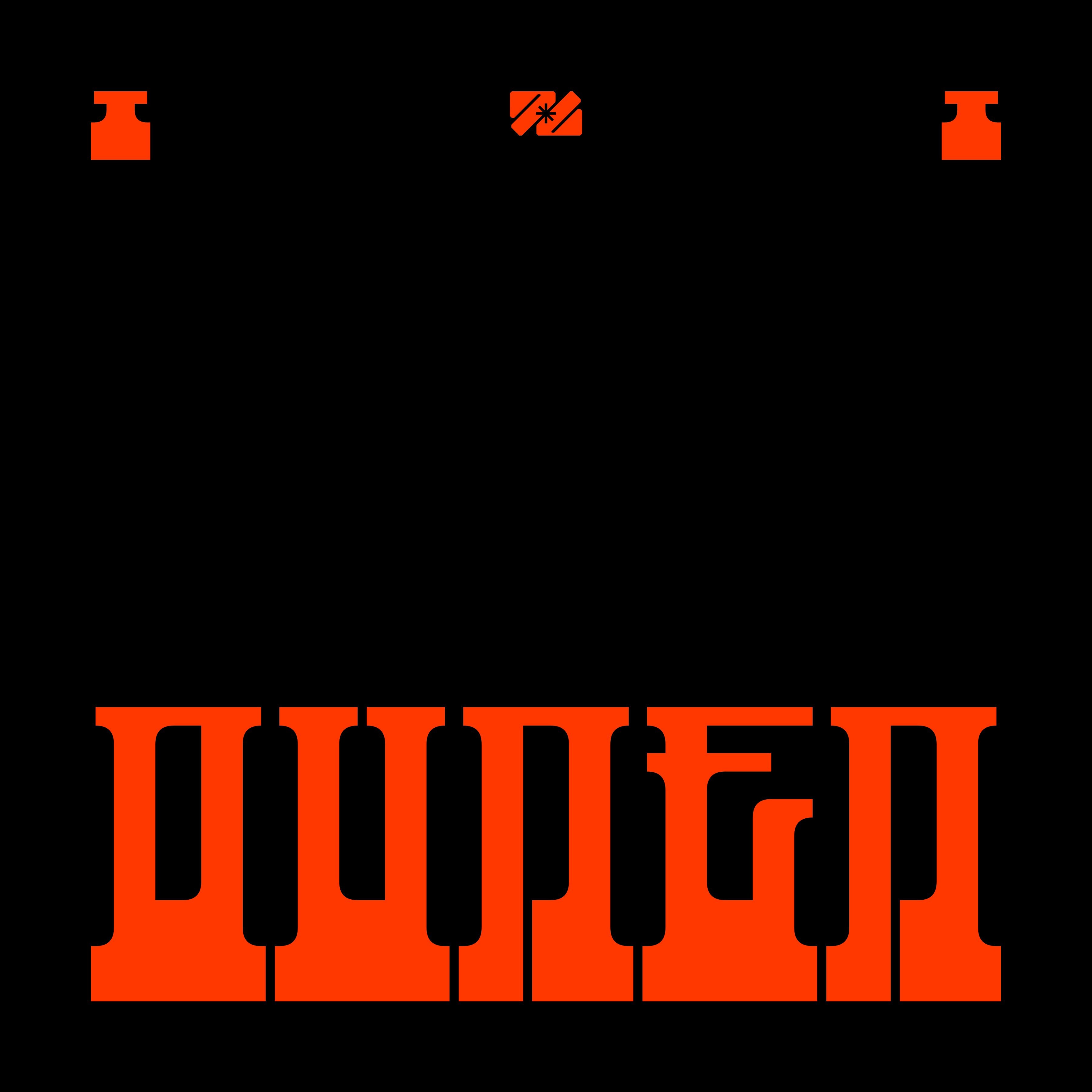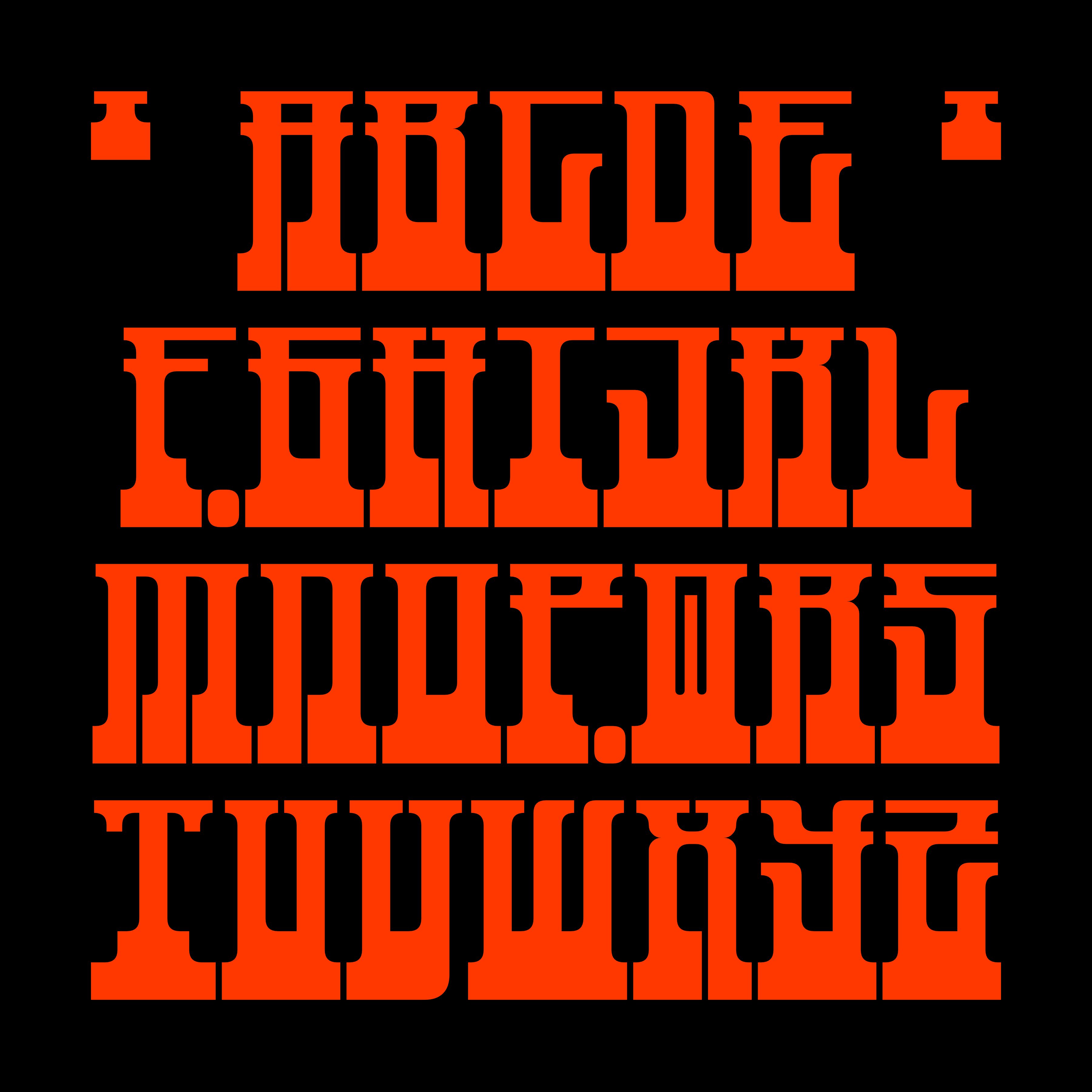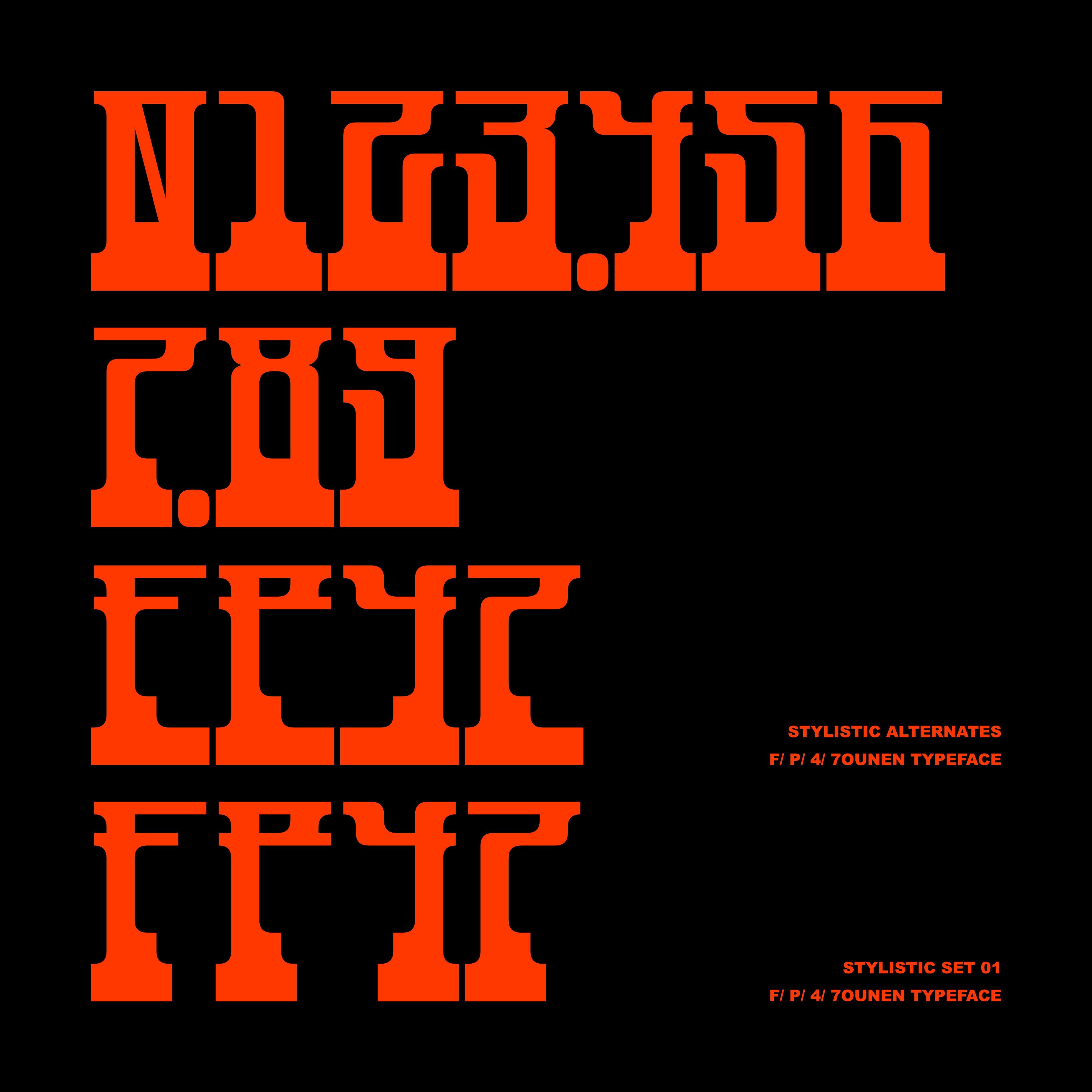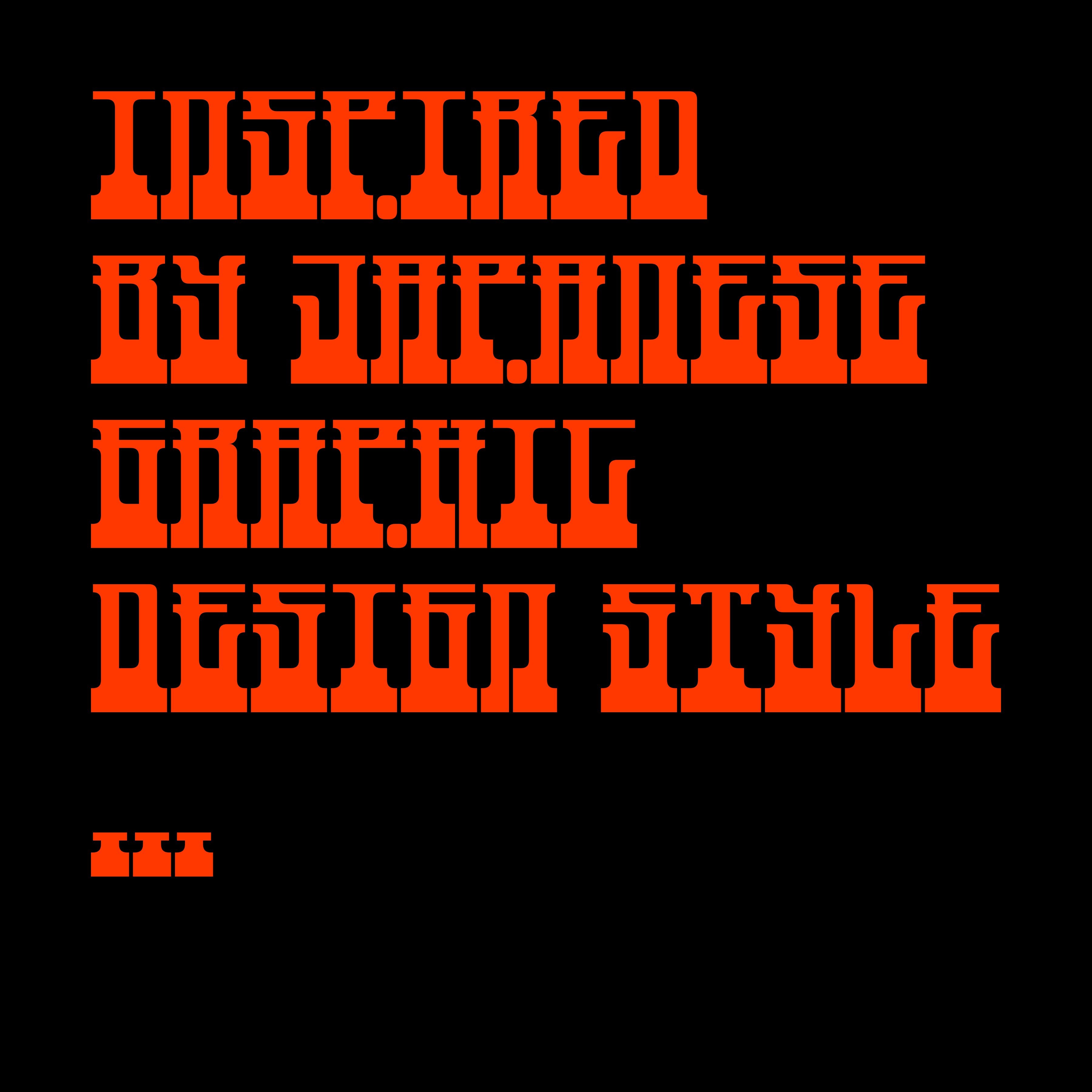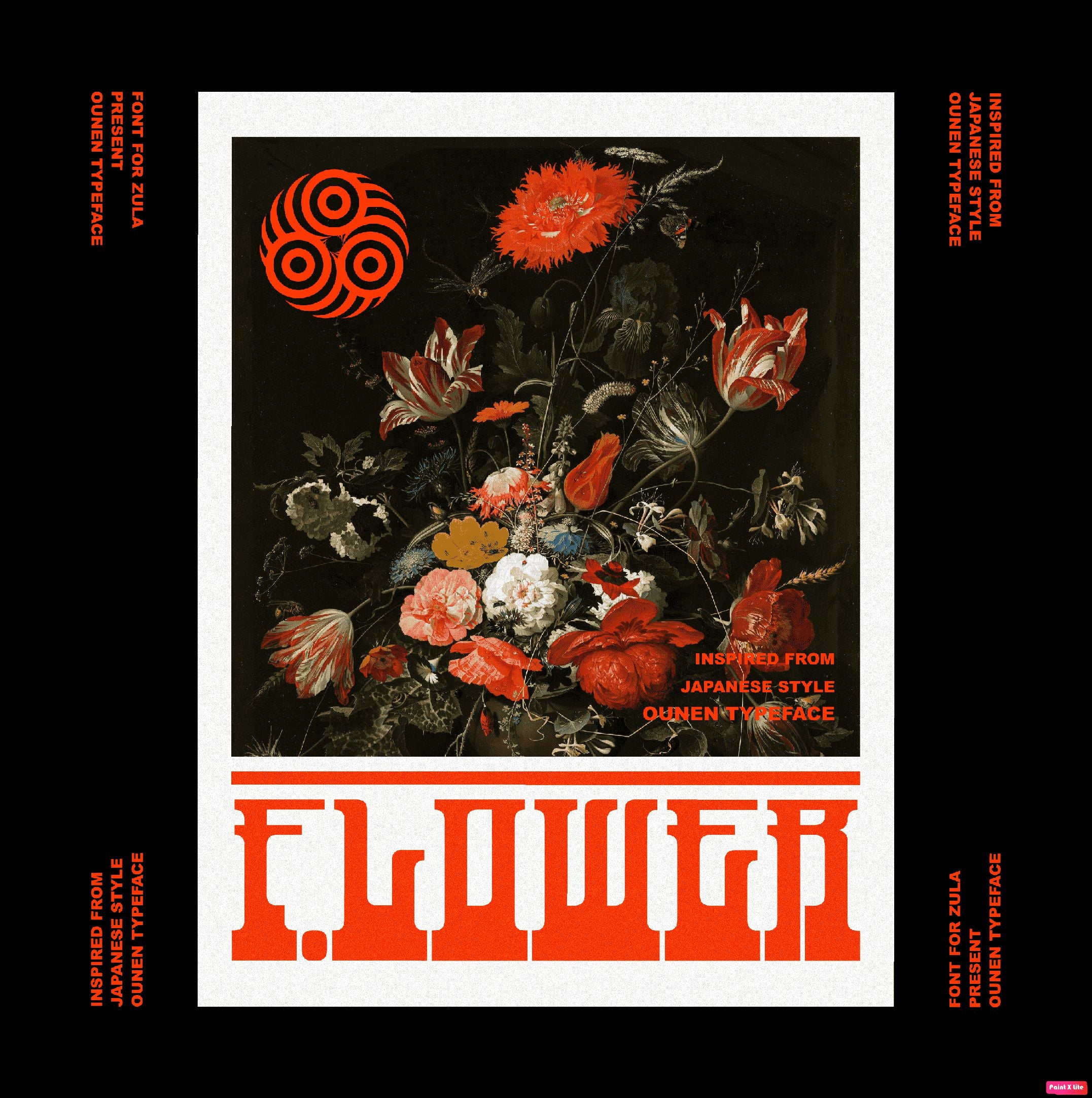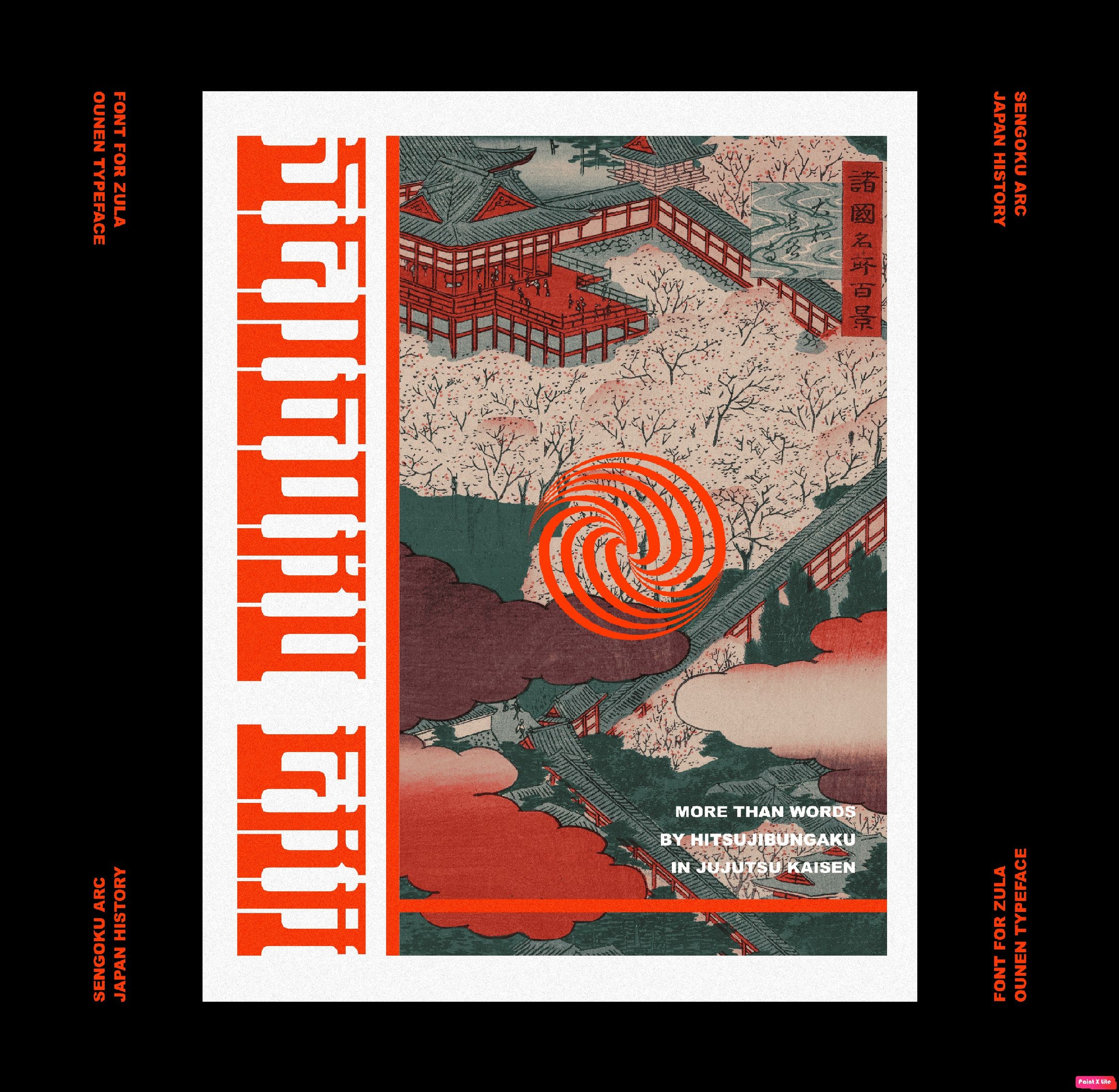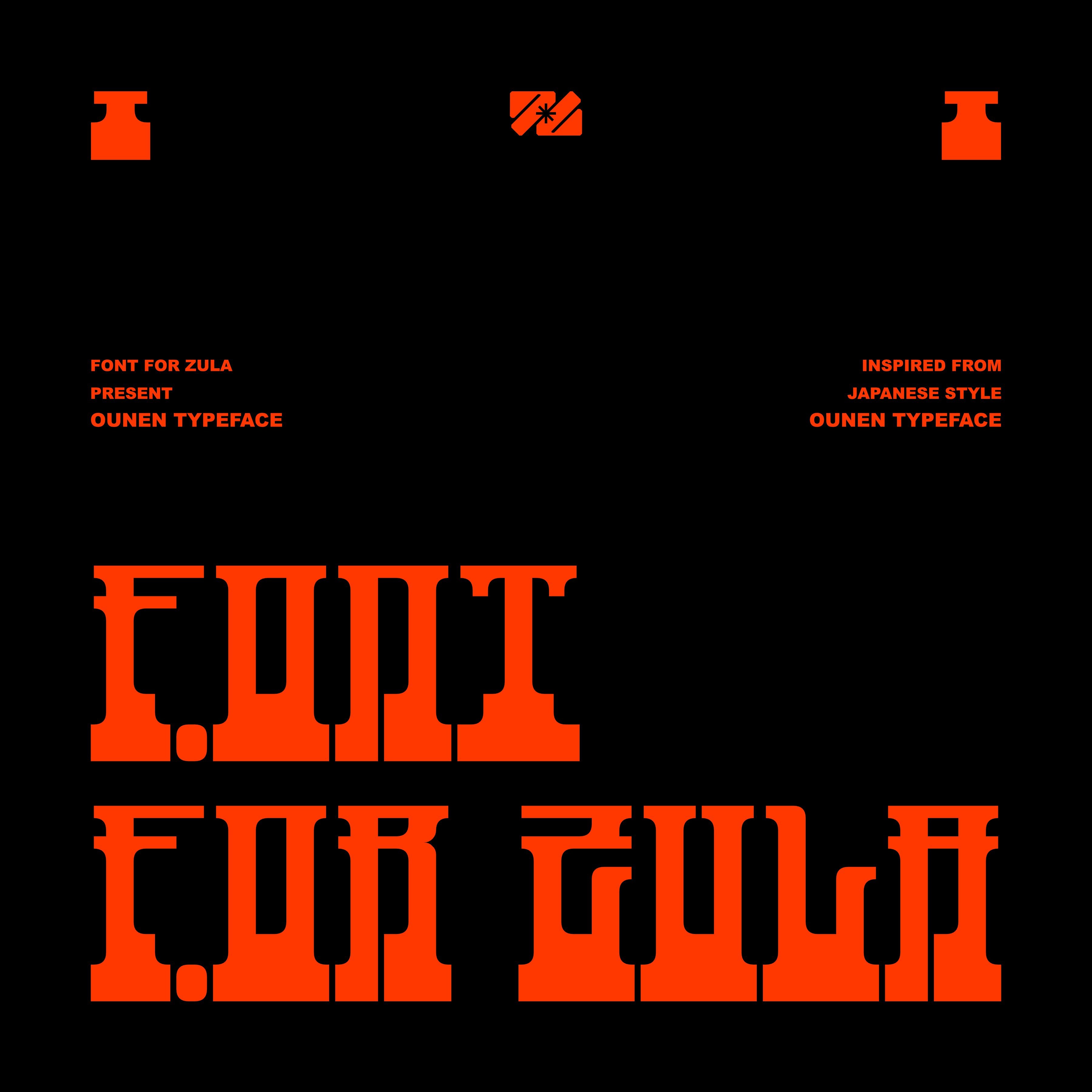
おうねん書体
The OUNEN Typeface is a bold, Japanese-inspired font suitable for various applications. It includes OTF/TTF and WOFF formats, 26 letters with 4 alternates, and 10 numerals with 4 alternates.
Ideal for Japanese-inspired graphic design and bold display typography. Perfect for posters, apparel, and branding projects, ensuring a unique and striking visual impact.